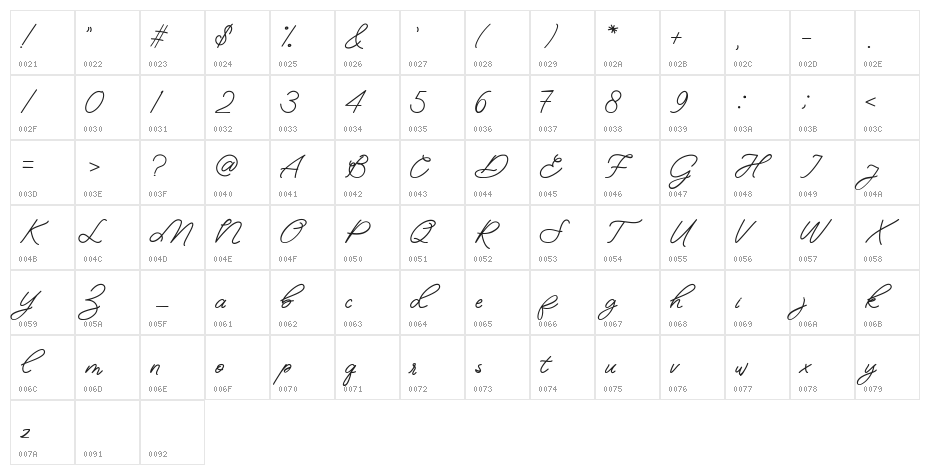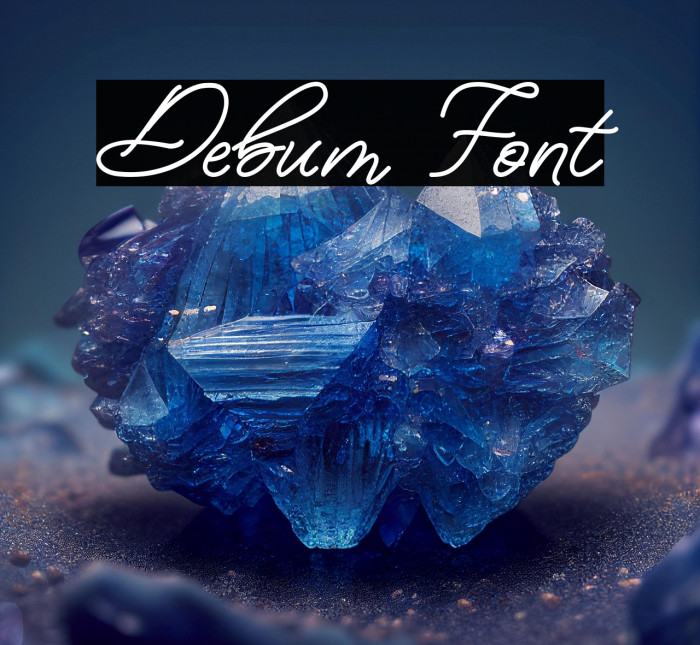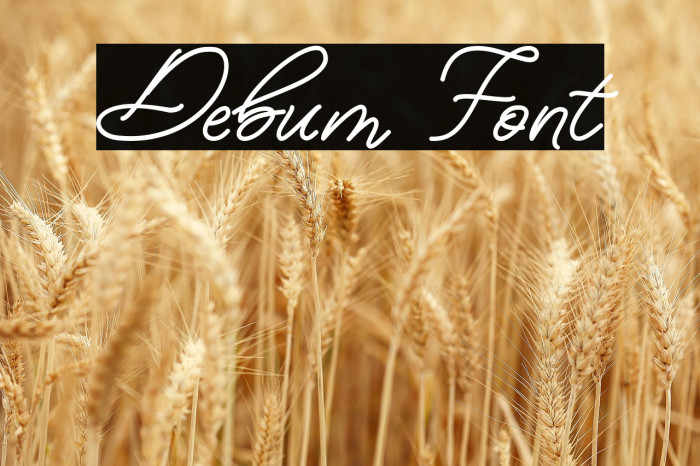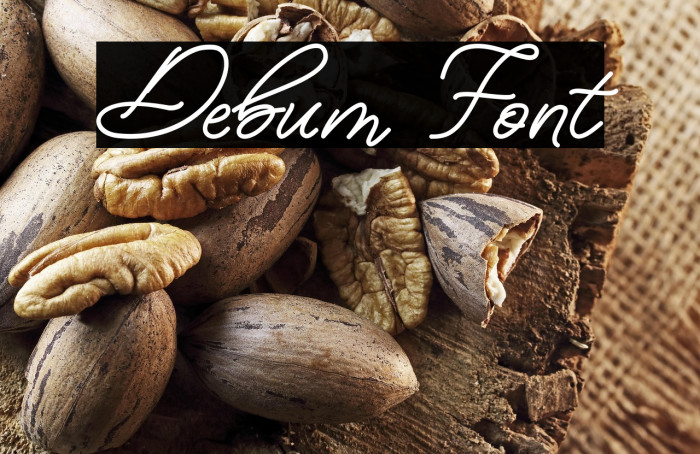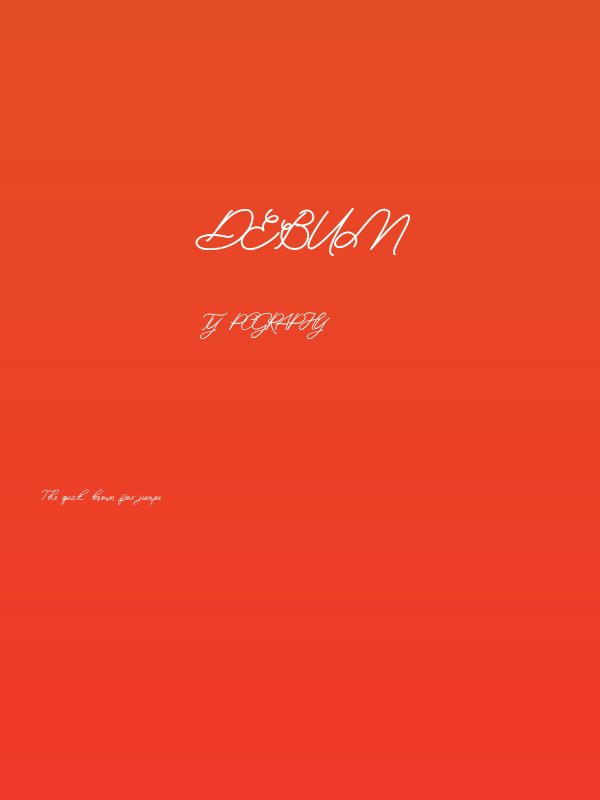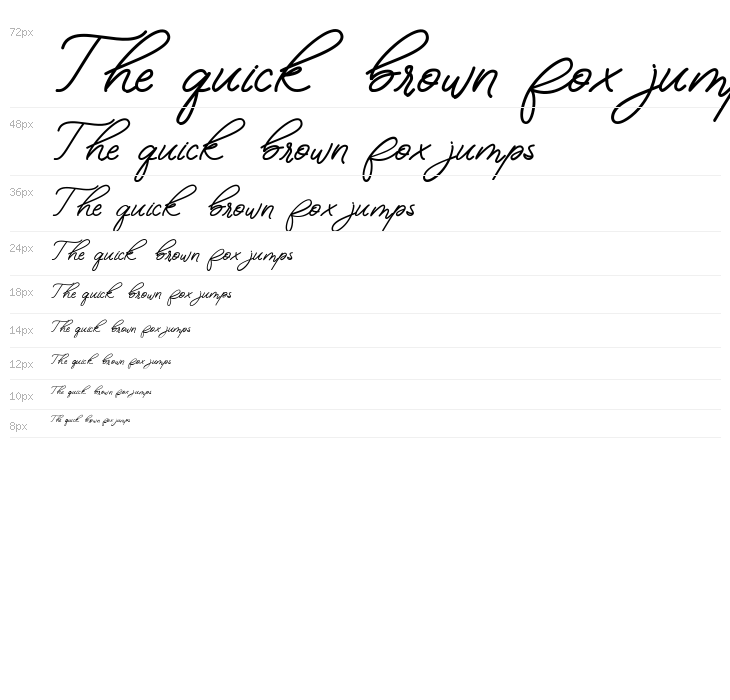
Debum Font
Debum Description
This elegant script font features fluid, connected strokes that mimic the natural flow of handwriting. The uppercase letters are slightly larger and more ornate, while the lowercase letters maintain a consistent, smooth appearance. The numbers and special characters are crafted with the same attention to detail, ensuring a cohesive look across all elements. The font's design is both sophisticated and approachable, making it suitable for a variety of uses. Its delicate curves and loops add a touch of elegance, while maintaining readability.